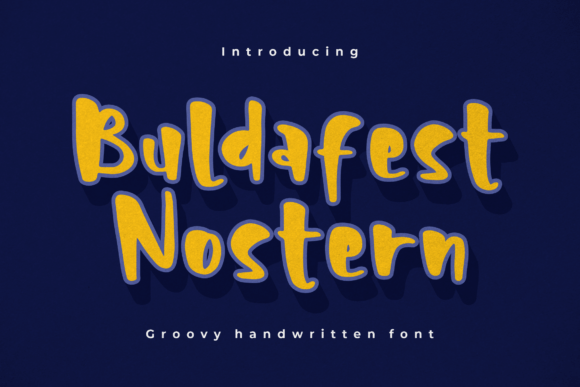
Dive into the world of wanderlust with Buldafest Nostern, the groovy handwritten font crafted by Glorytype Studio. Designed to awaken your inner globetrotter, this font is your perfect travel companion, ready to capture the essence of your journeys through captivating typography.
With Buldafest Nostern, your words become windows to faraway lands, inviting readers to embark on an adventure with every letter. Its elegant strokes evoke the nostalgia of handwritten postcards, the thrill of exploring hidden gems, and the warmth of sharing travel tales. Whether you're a blogger, travel agency, or wanderlust-inspired entrepreneur, this font will transport your audience to new horizons.
Say goodbye to ordinary fonts and embrace the charm of Buldafest Nostern. Its versatility shines in logos, branding projects, homeware designs, product packaging, mugs, quotes, posters, shopping bags, and any project yearning for a touch of wanderlust.
Buldafest Nostern isn't just a font; it's a passport to creativity, a ticket to the world of limitless imagination. Let your designs take flight with this font, and watch as your projects transform into captivating expressions of your travel passion.